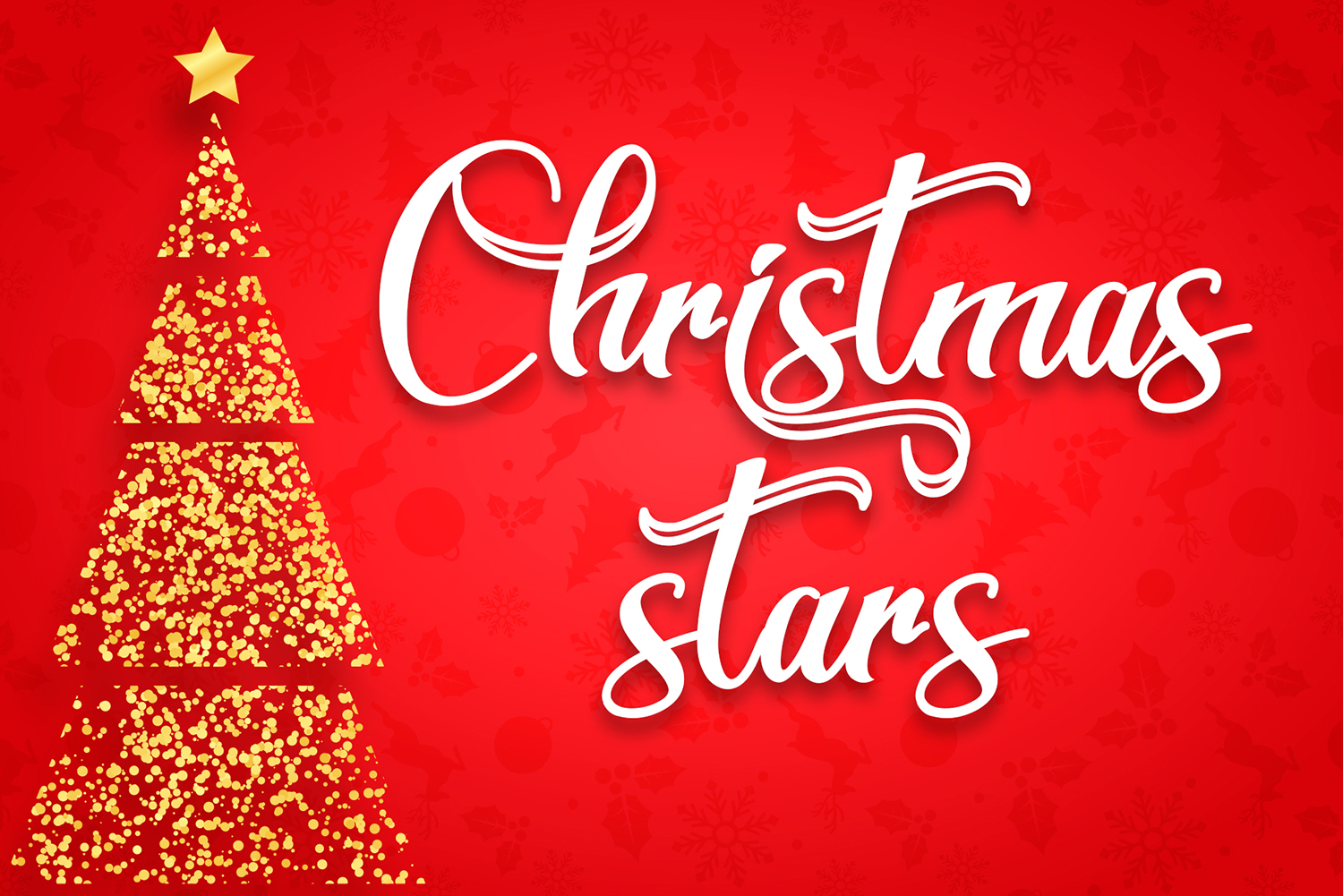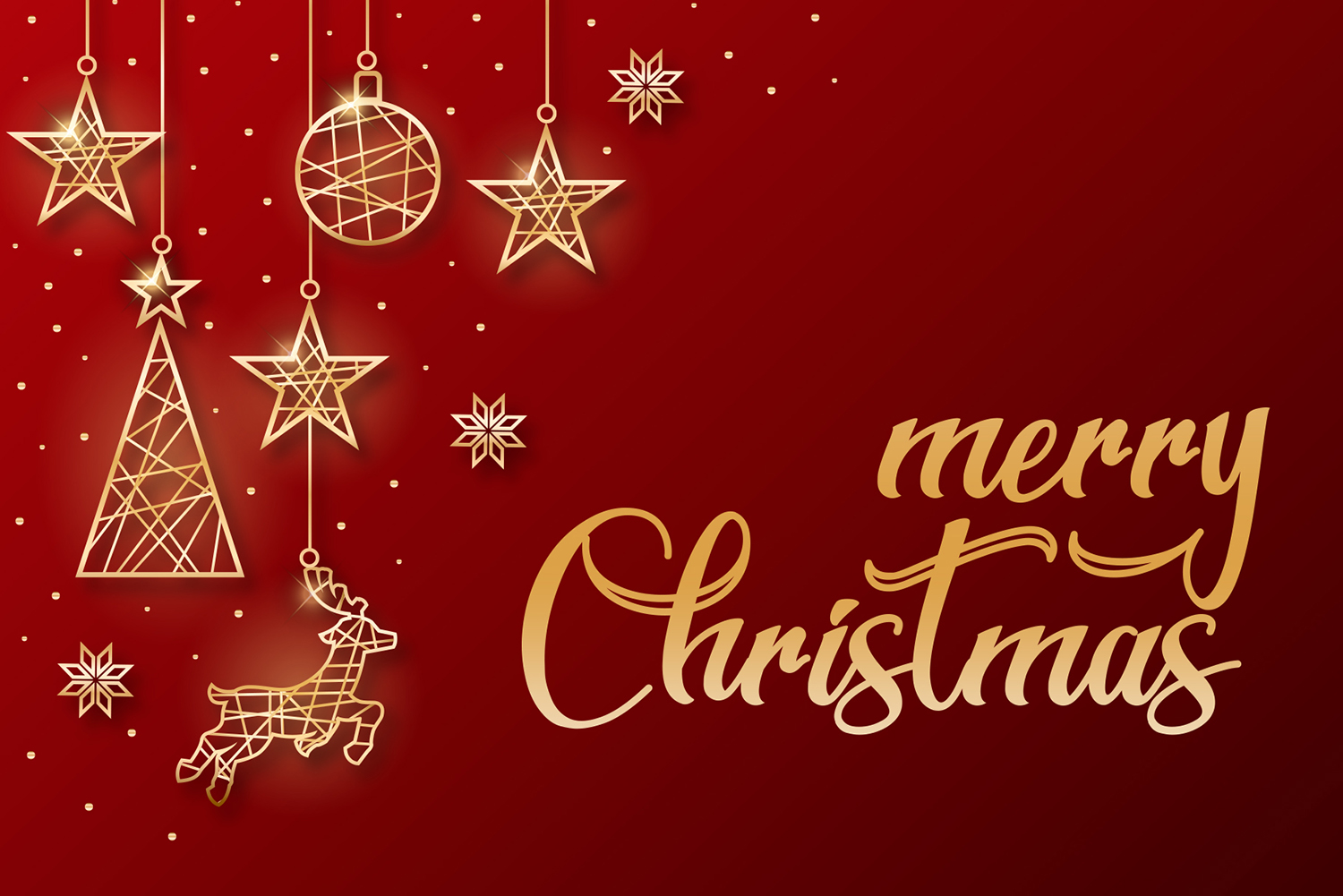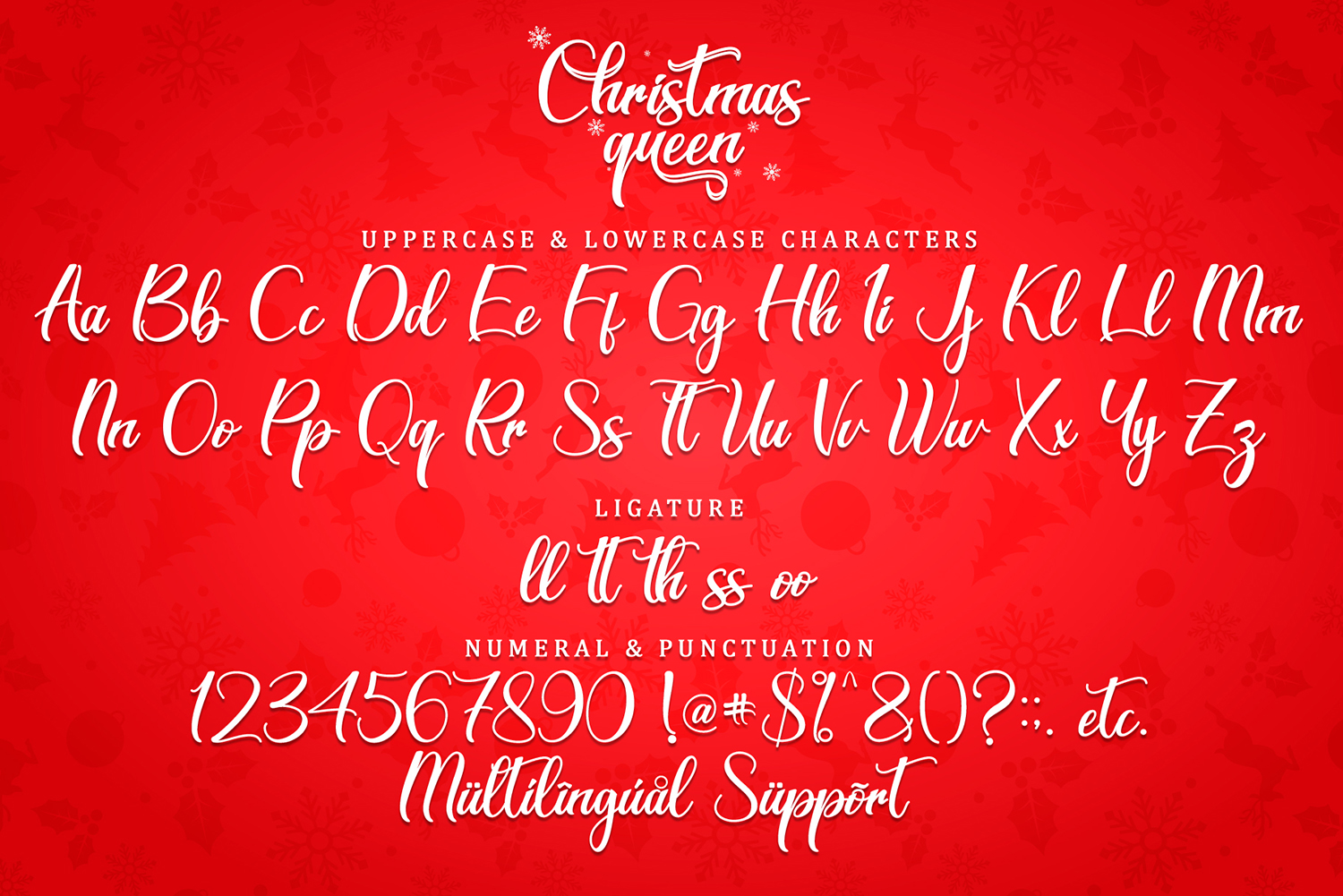
Christmas Queen Free Font
Unveil the brilliance of Christmas Queen, a stunning script font meticulously crafted with intricate details. Elevate your design repertoire with this font’s captivating charm. Irrespective of the theme, Christmas Queen proves to be an invaluable addition to your font library, enhancing the potential of any creative endeavor. This free typeface was designed by a talentedΒ Alif Ryan Zulfikar. If you like it don’t forget to check out the full version.